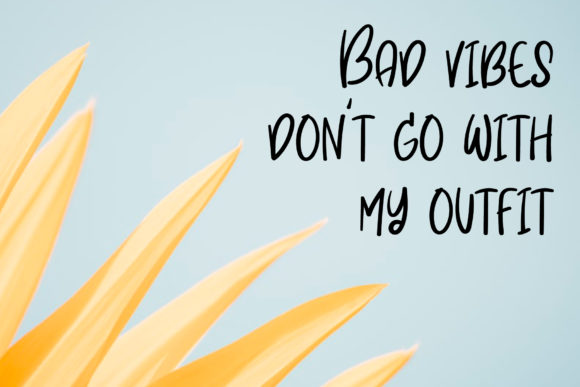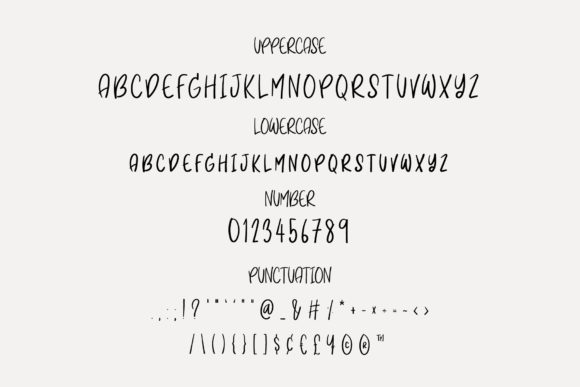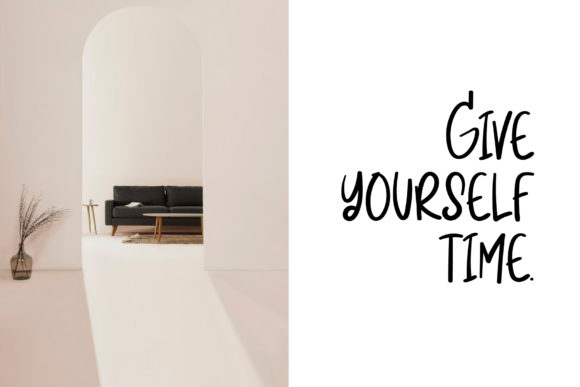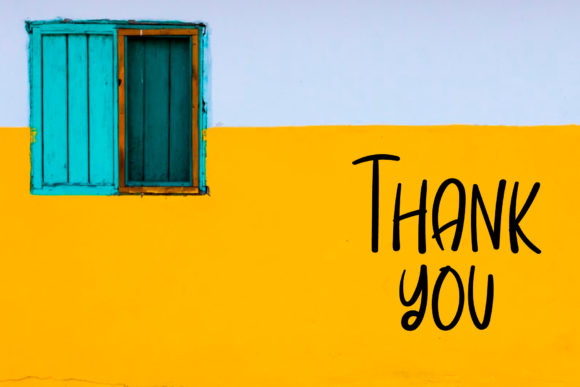
Smile Font
About Smile Font
Smile is a fun and playful handwritten font. Use it to make your ideas even more realistic and create spectacular designs!